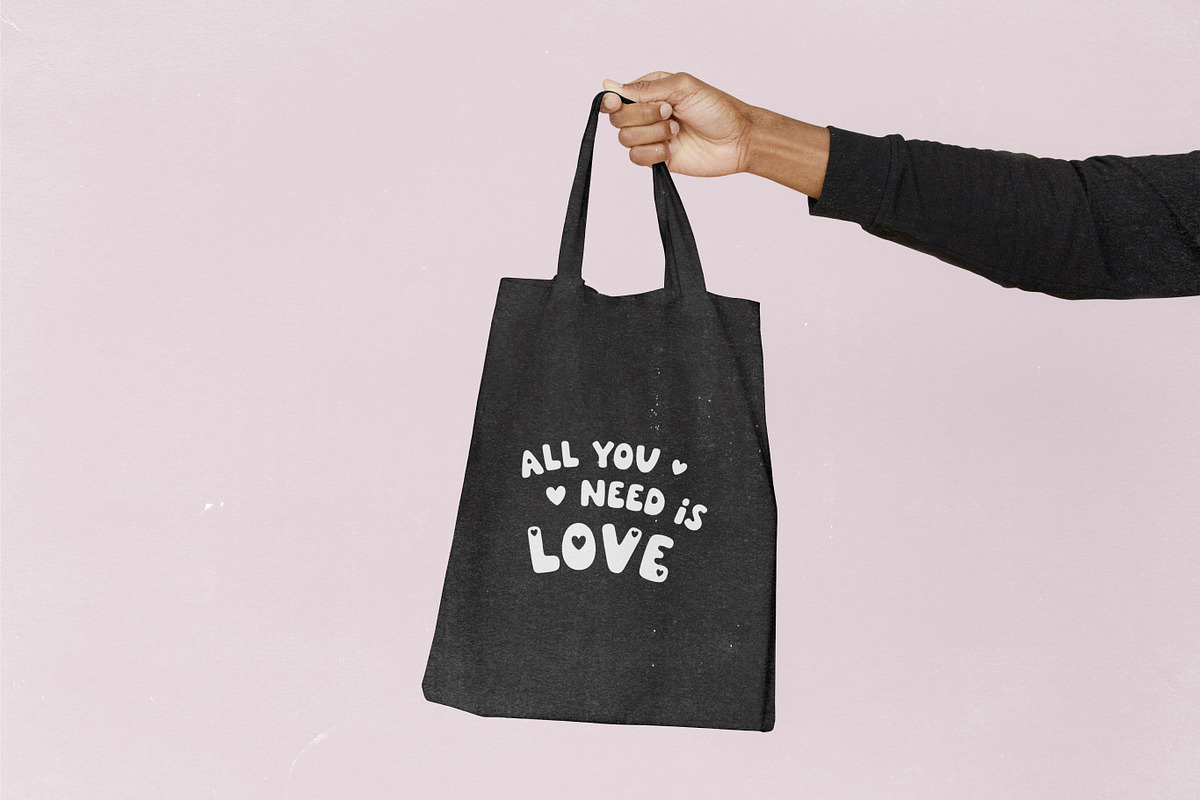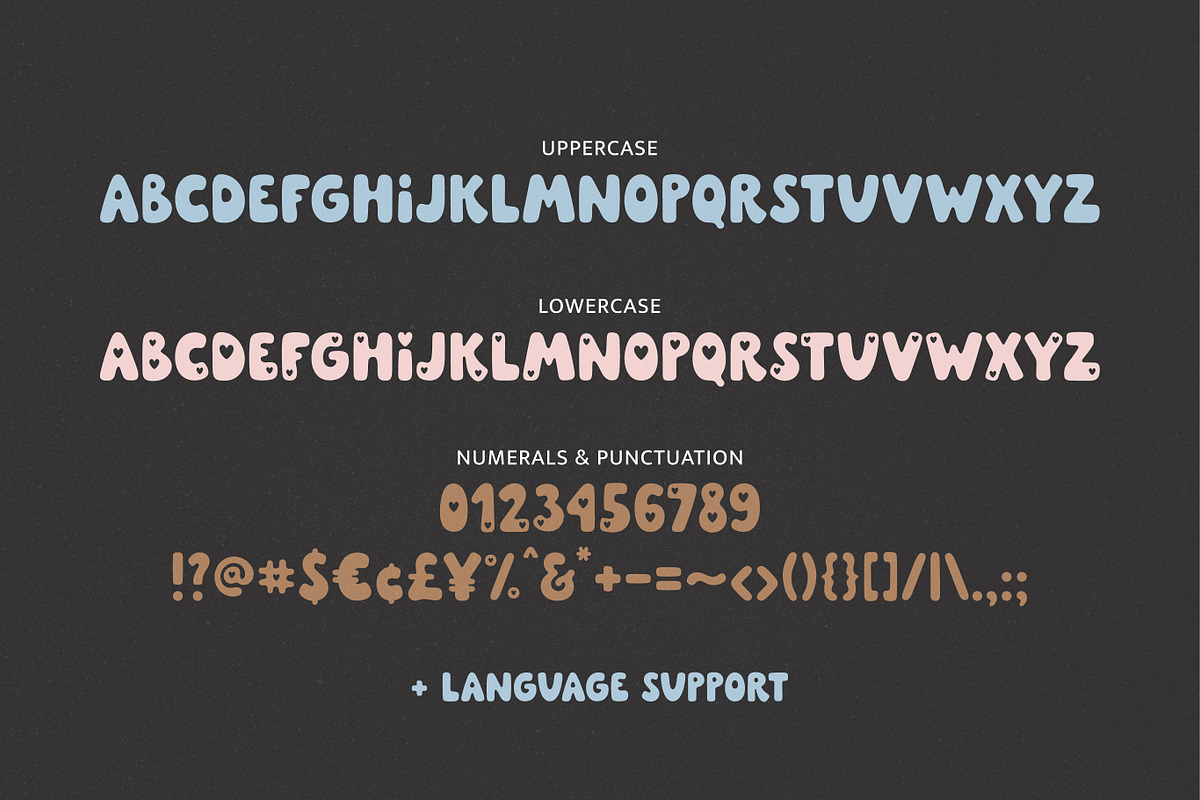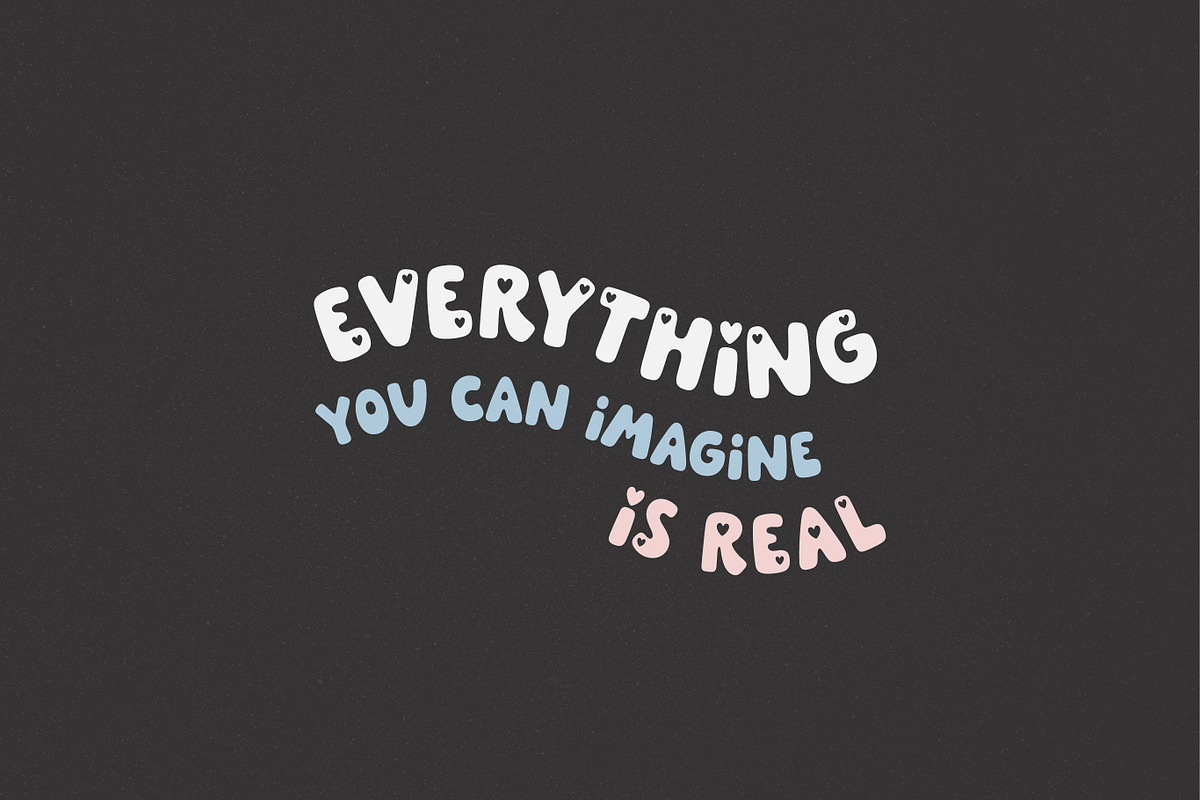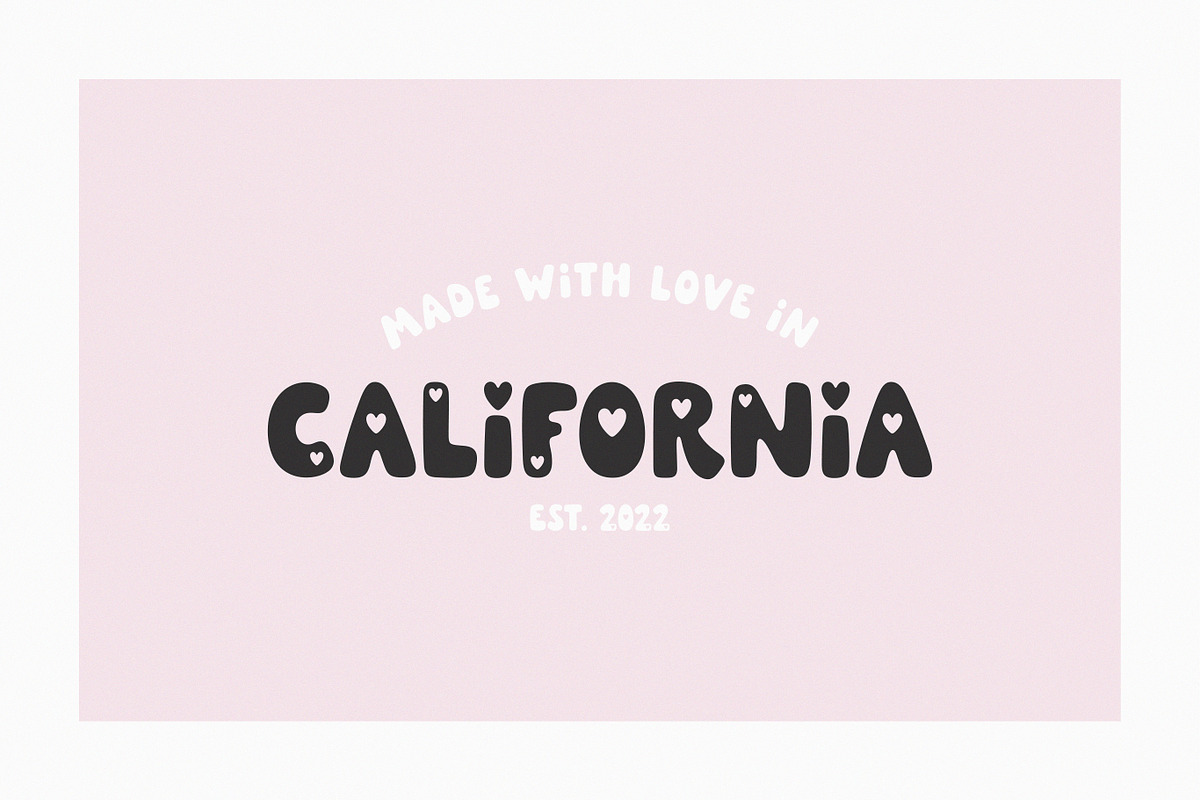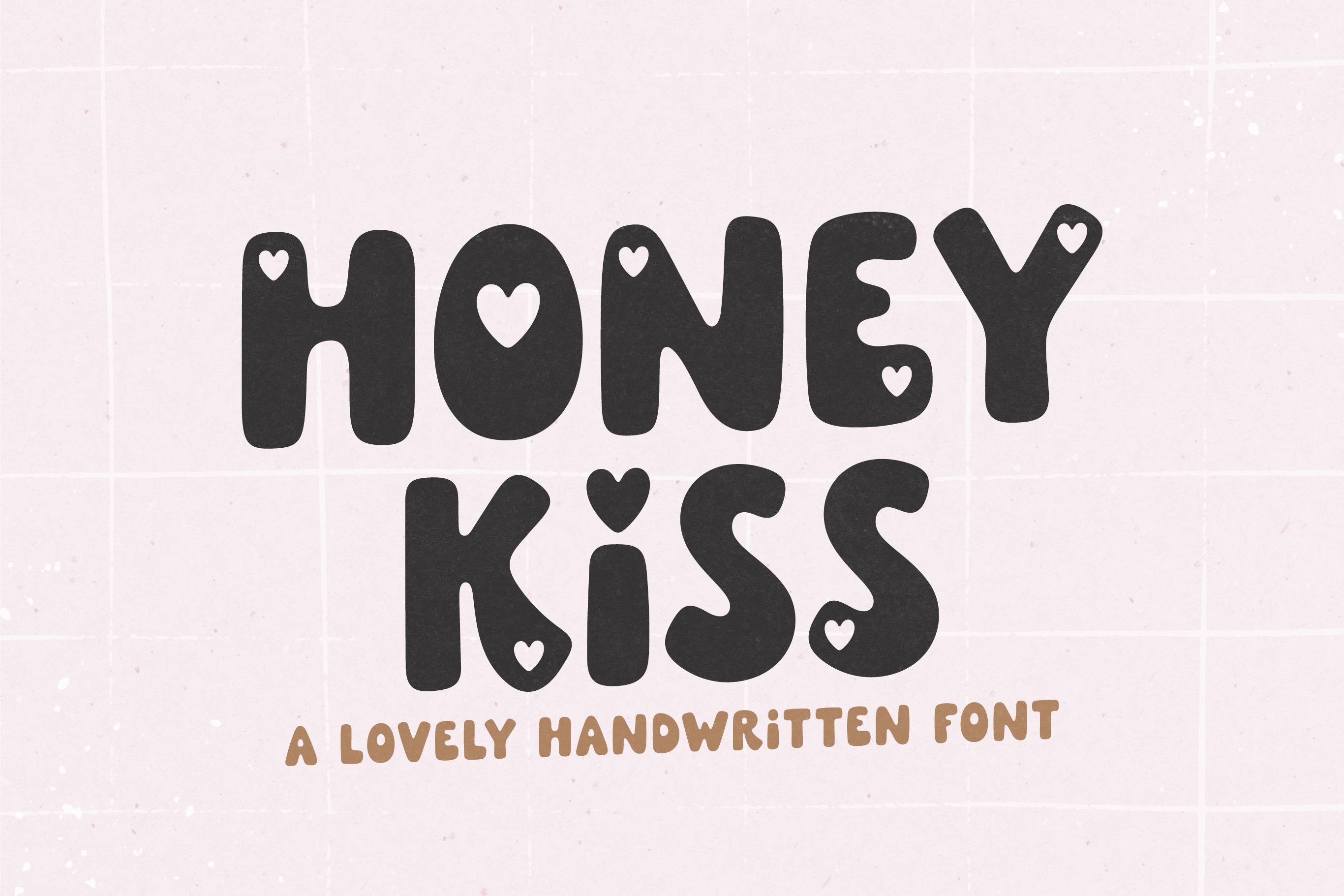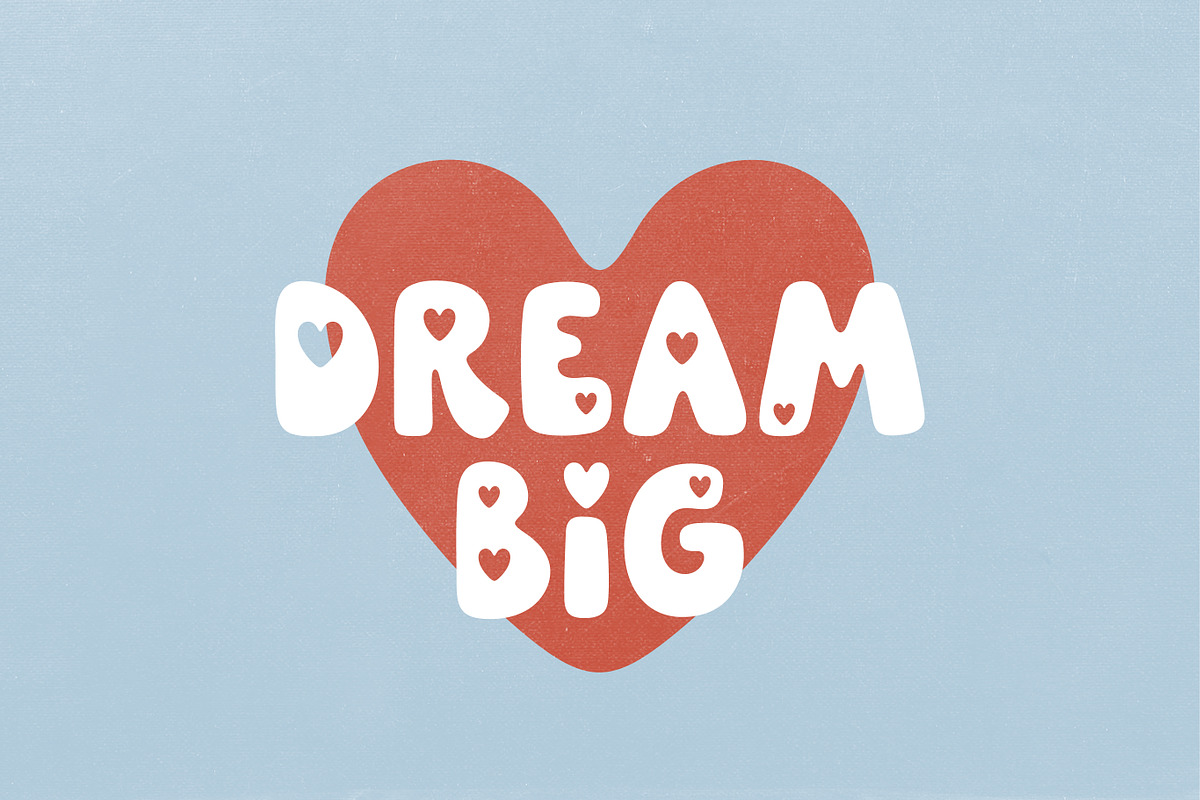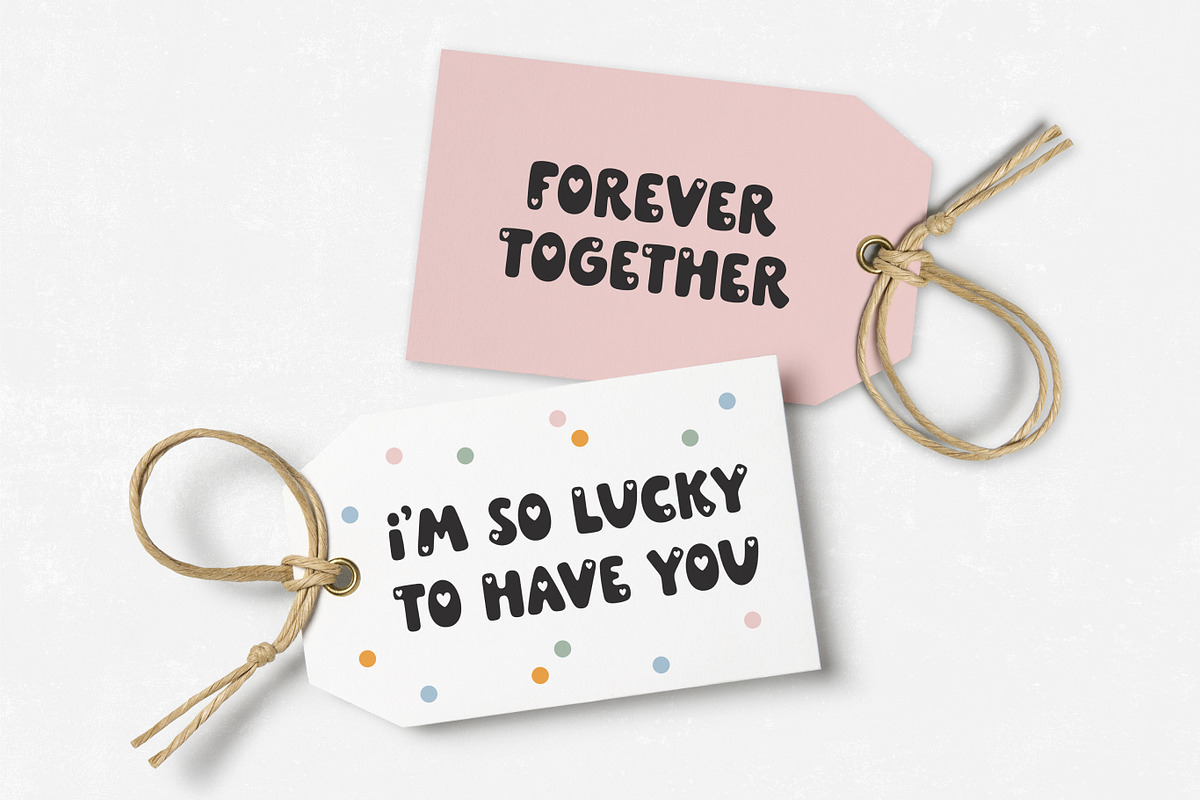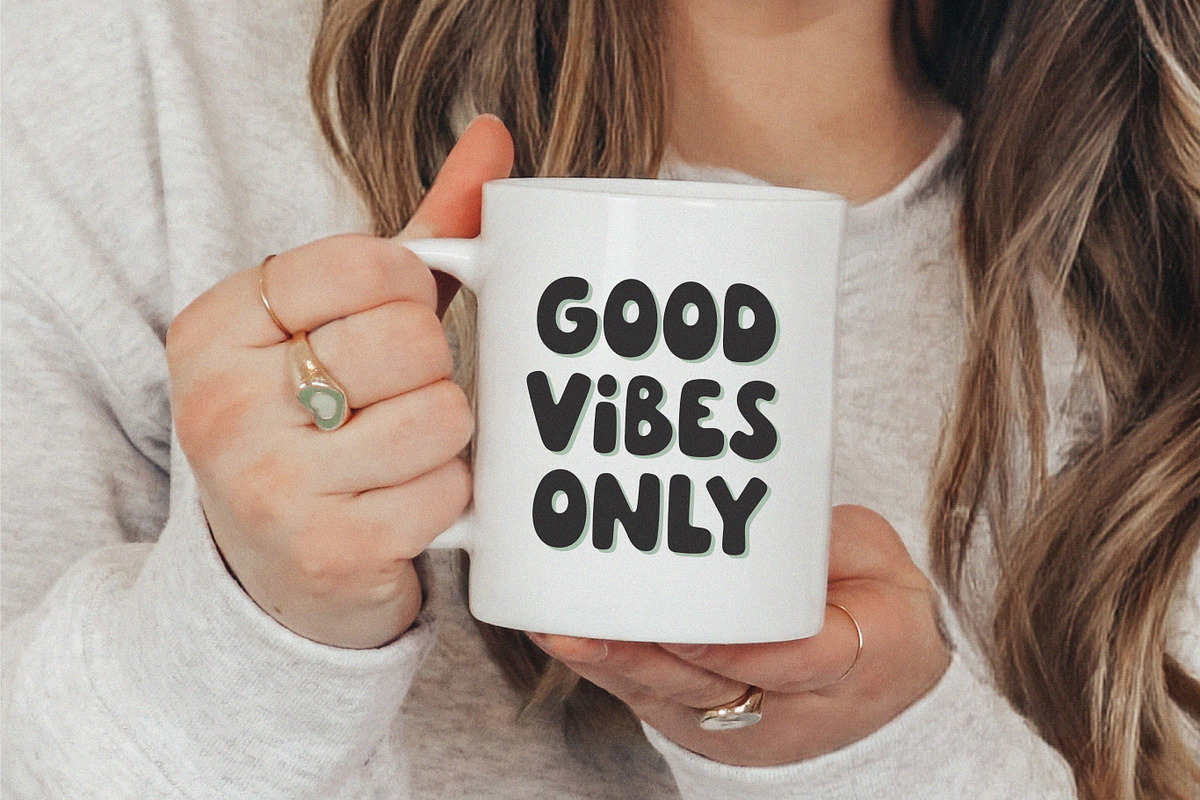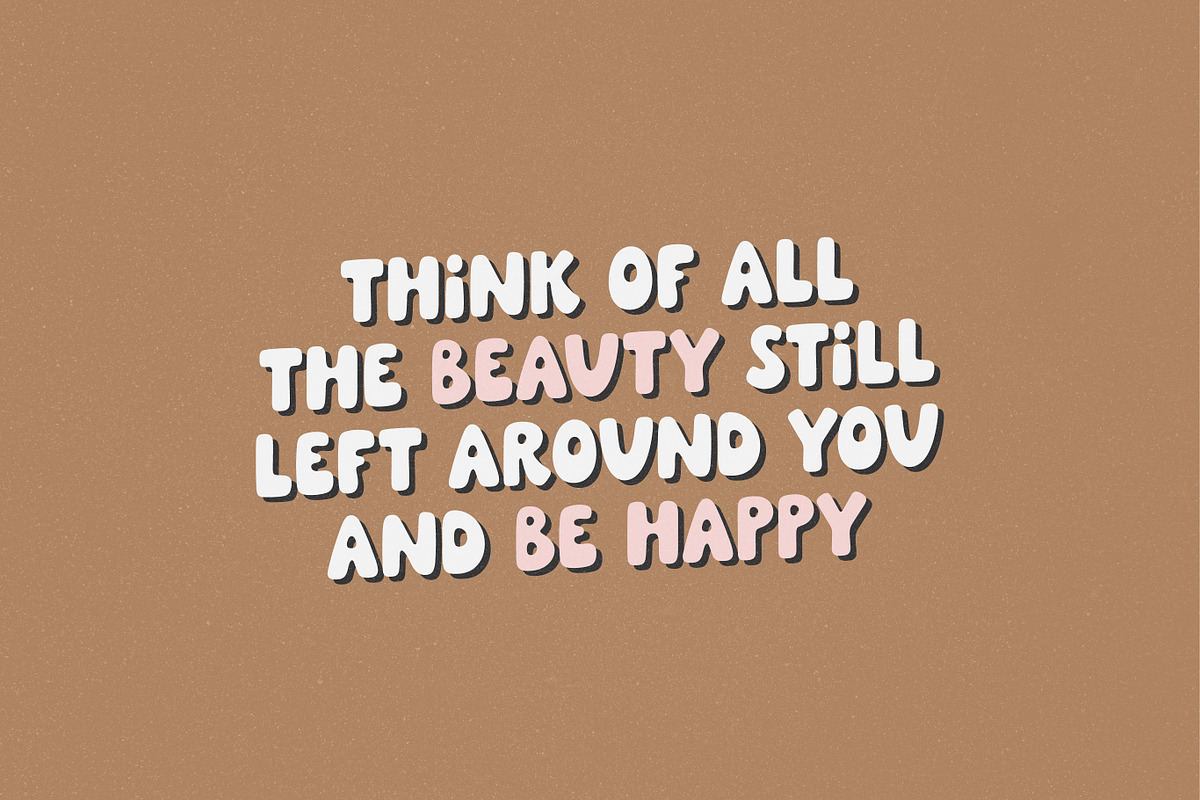
Honey Kiss - Valentine's Day Font
Honey Kiss - a lovely Valentine’s Day font with hearts. Perfect for romantic designs, logos, branding, packaging, apparel, cards, posters, quotes, social media posts, stickers and more!